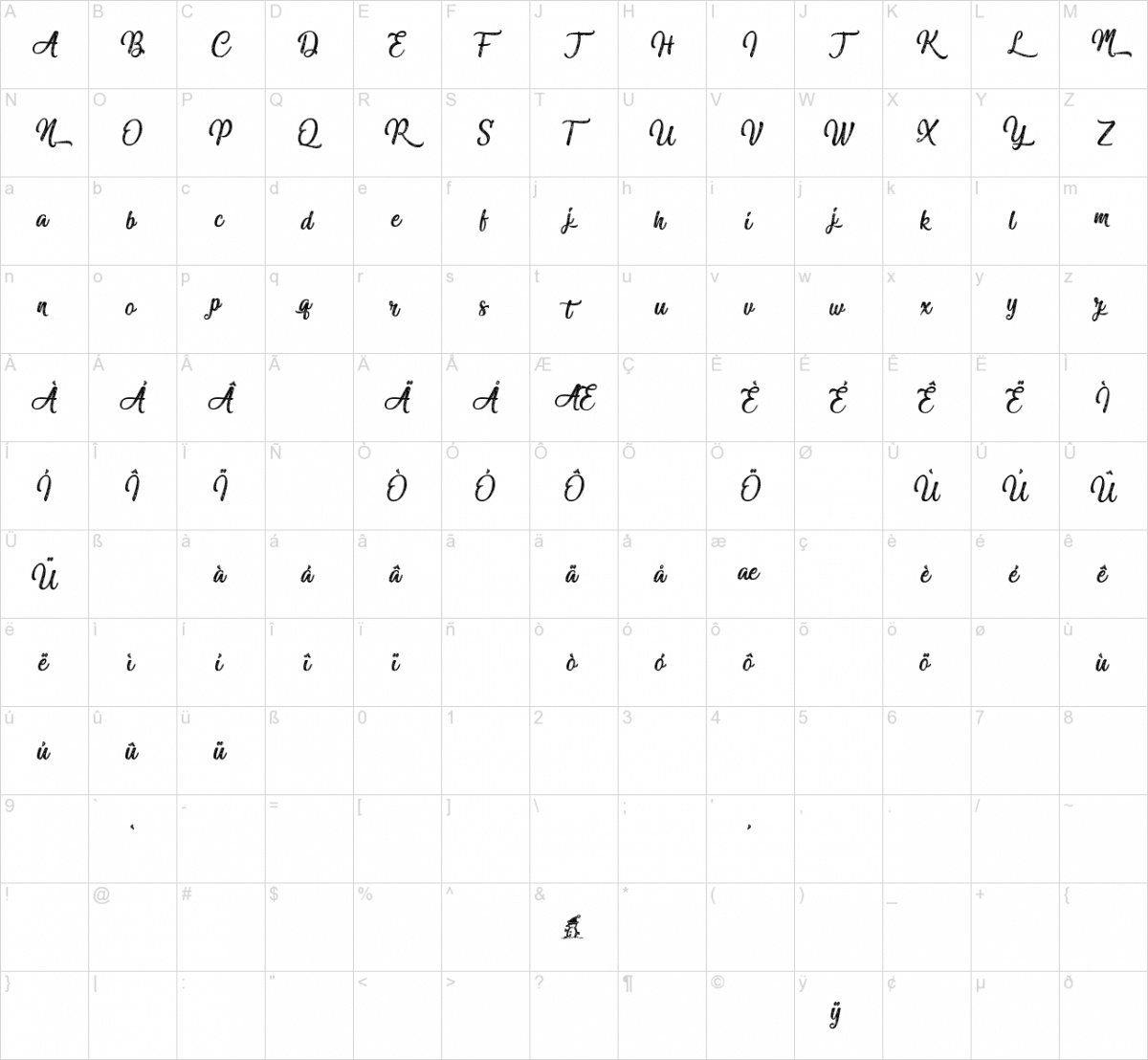
Miraculous & Christmas Font
Miraculous Christmas
Miraculous & Christmas Font is beauty Calligraphy font, designed by Cat.B. You can use this font for personal purpose.